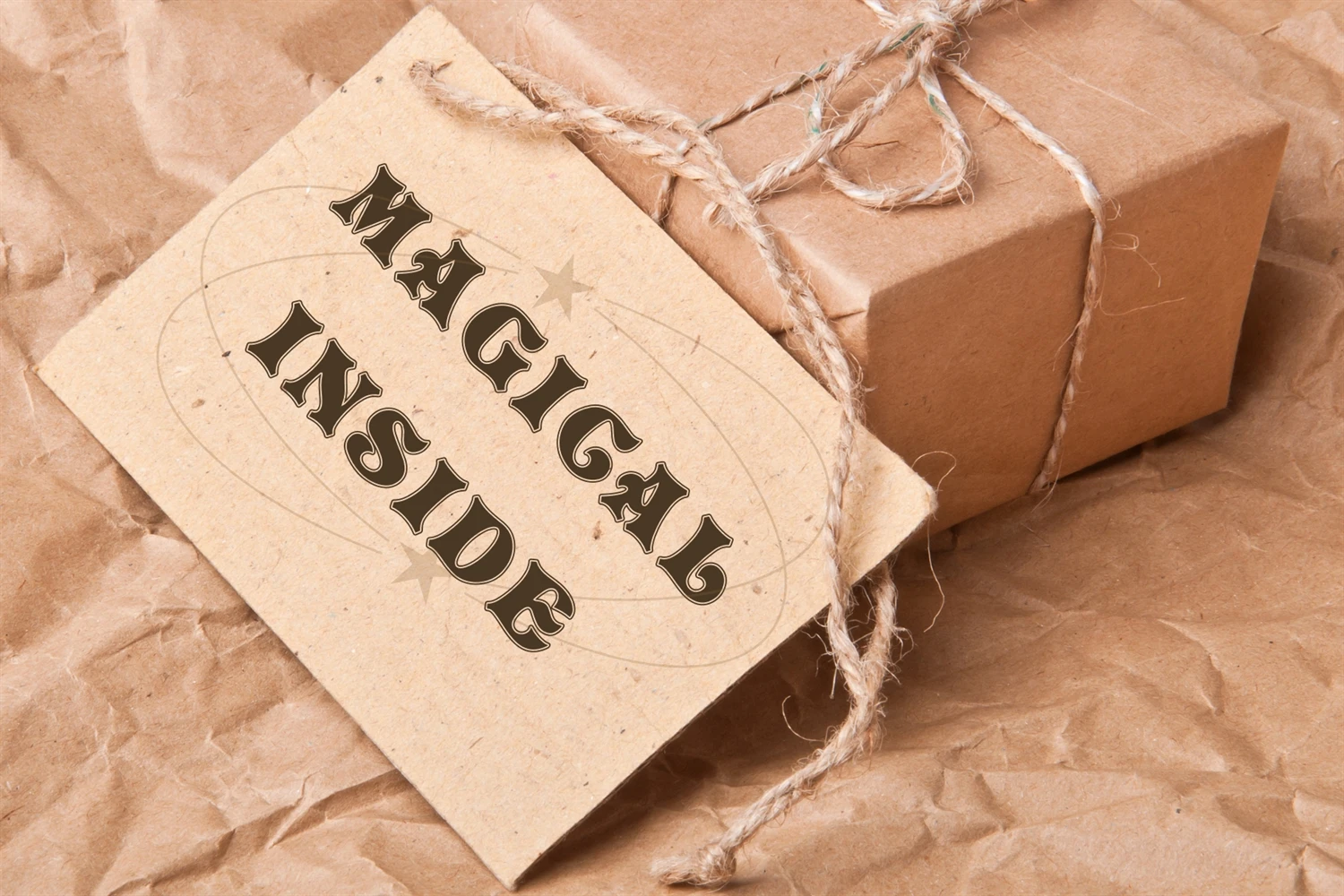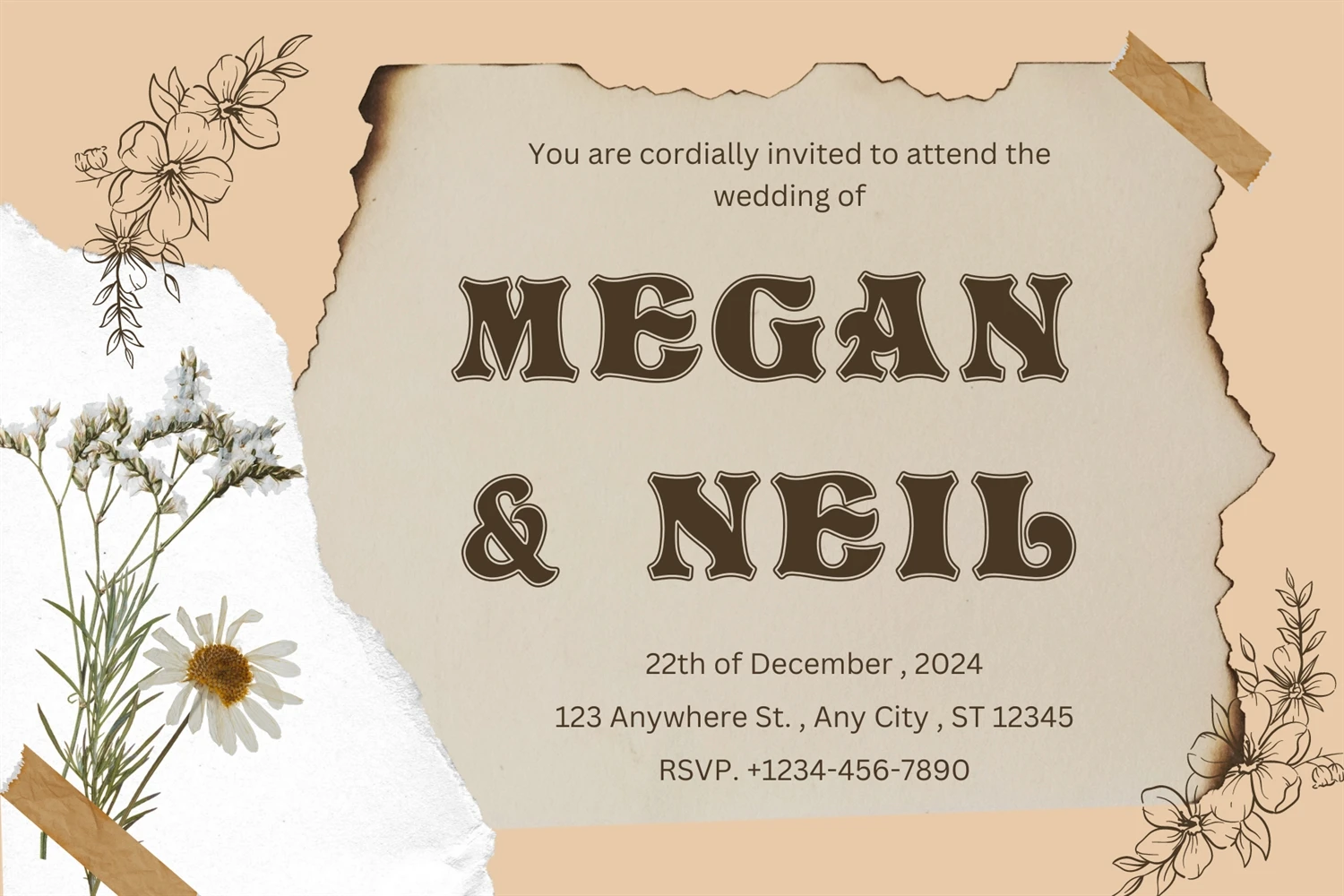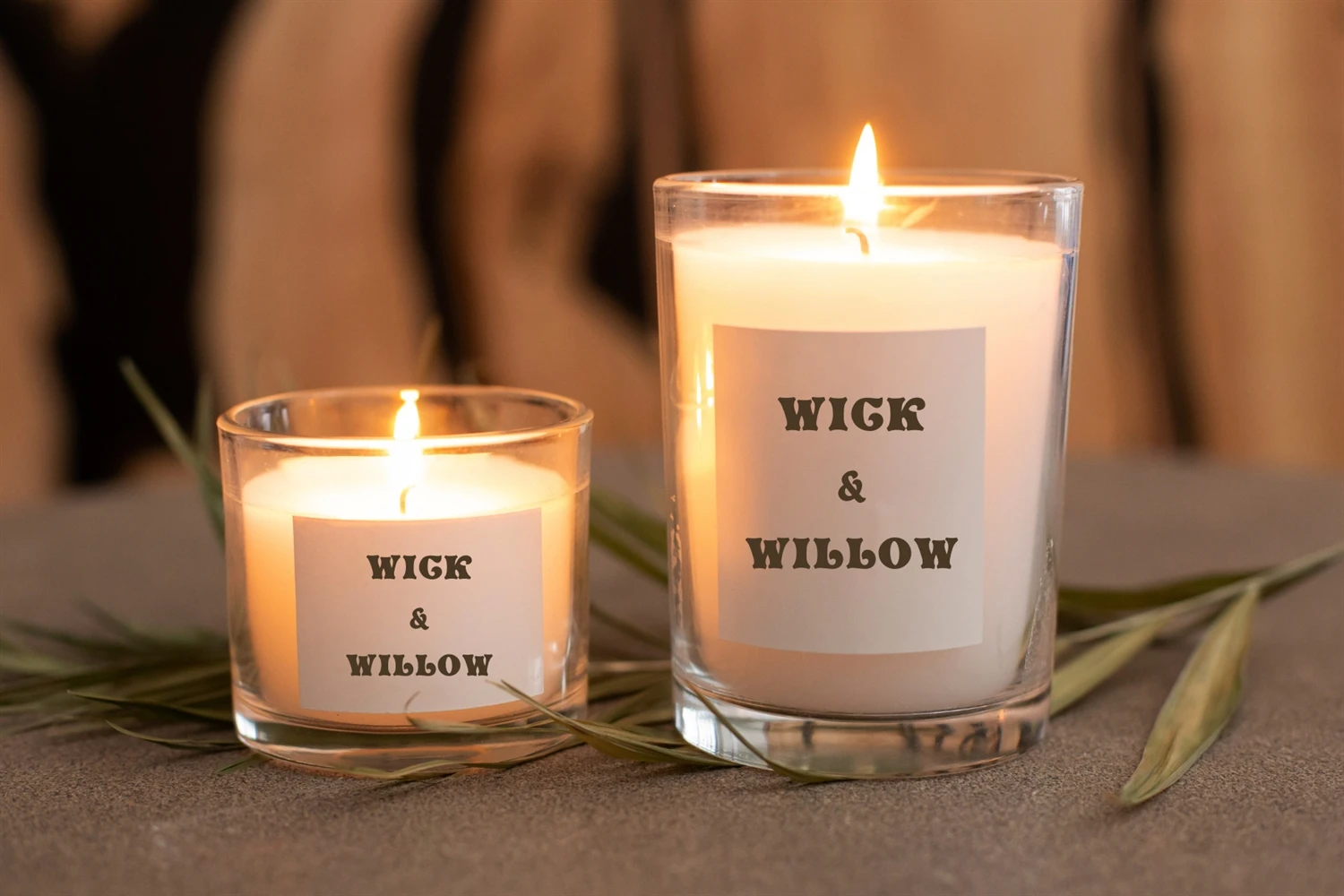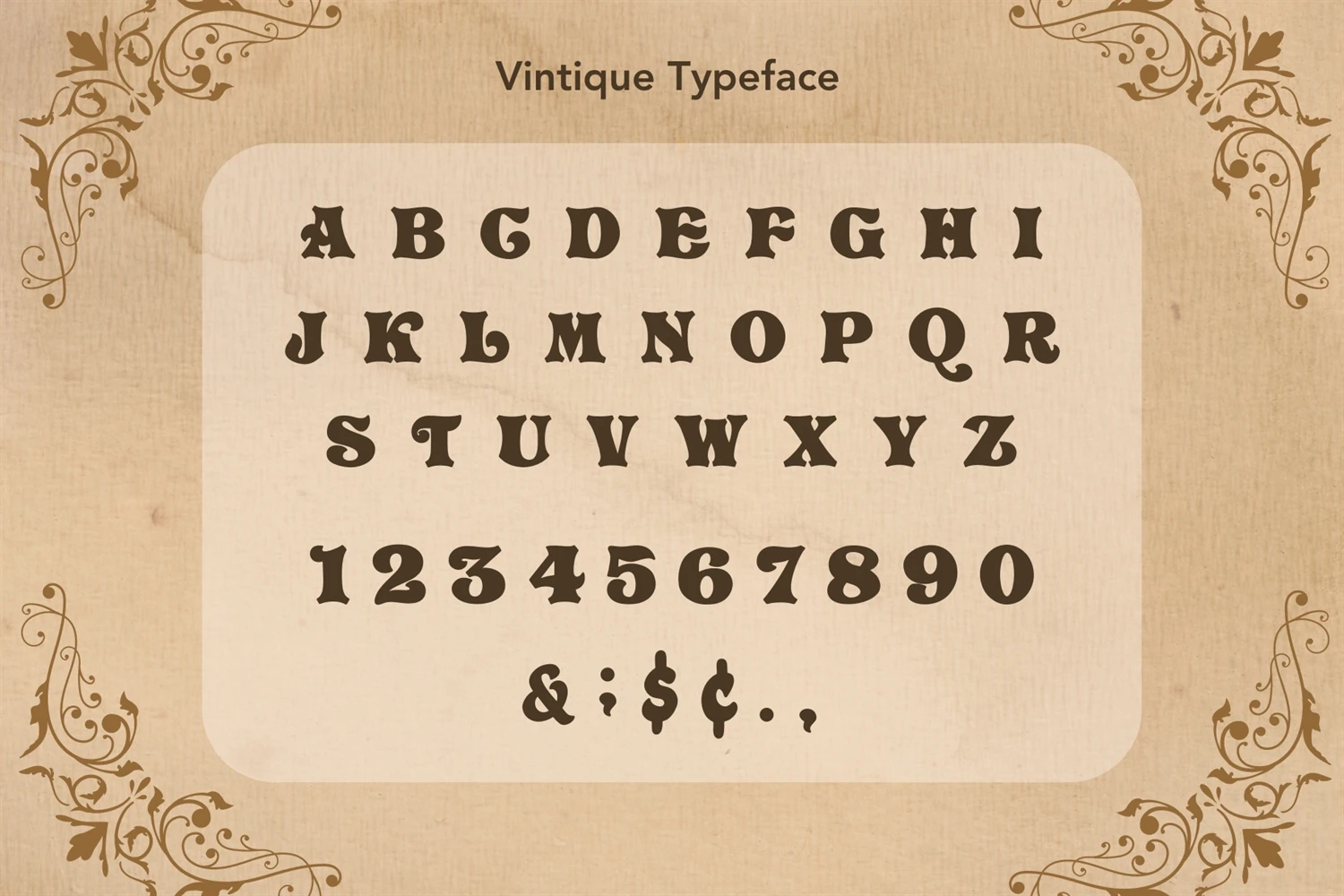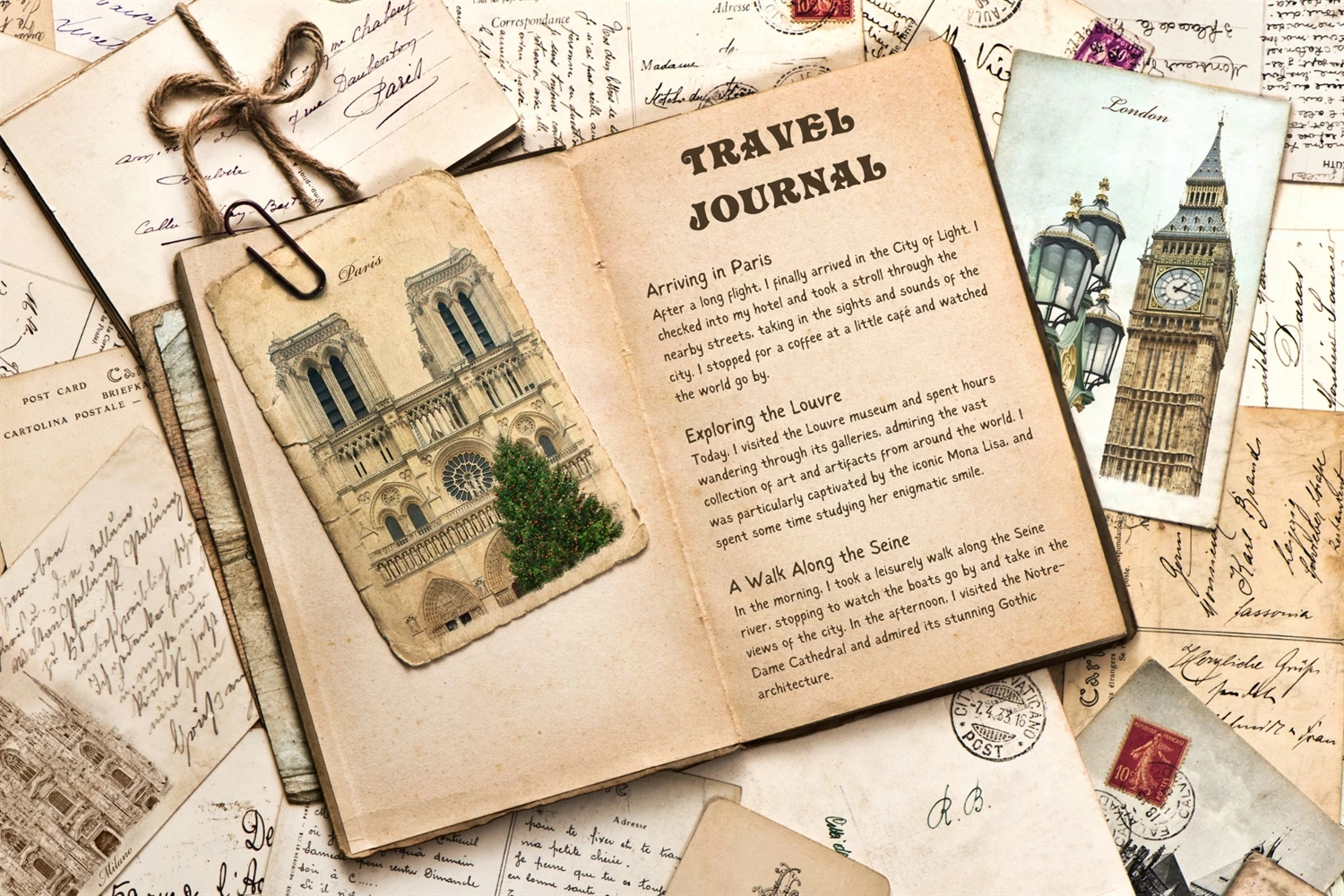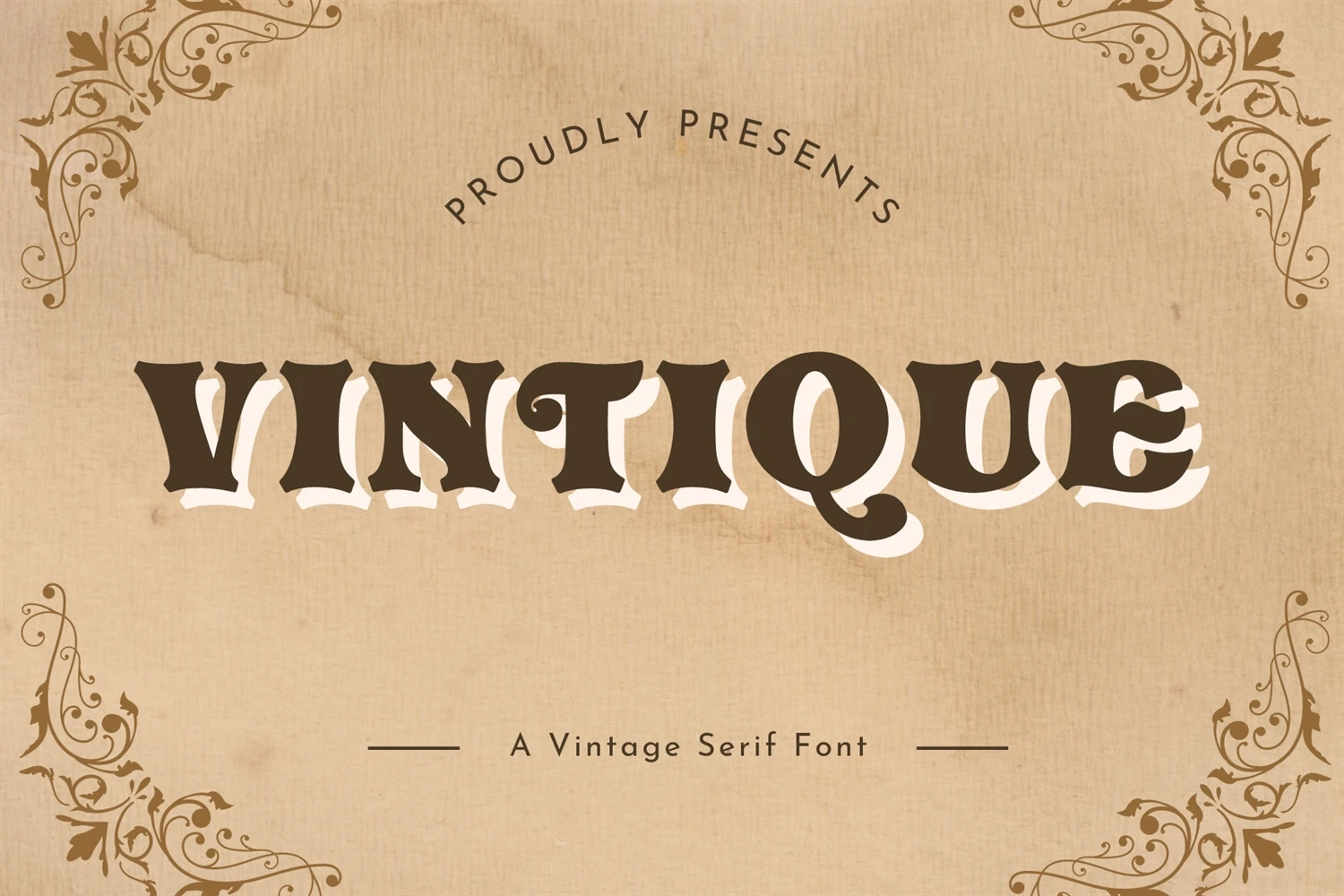
Vintique is an elegant and retro slab serif font that exudes class and sophistication. Its clean lines and bold strokes are reminiscent of a bygone era, while still maintaining a contemporary appeal. Perfect for designs that require a touch of old-world charm, this font is sure to impress.